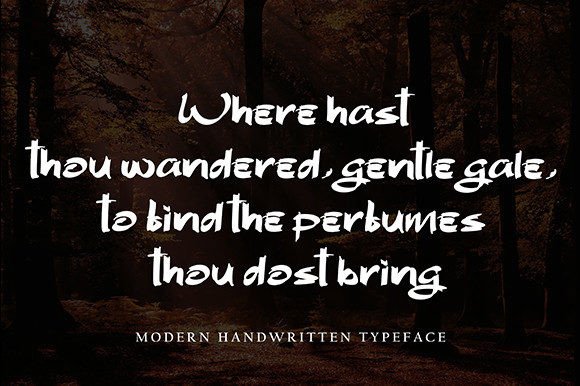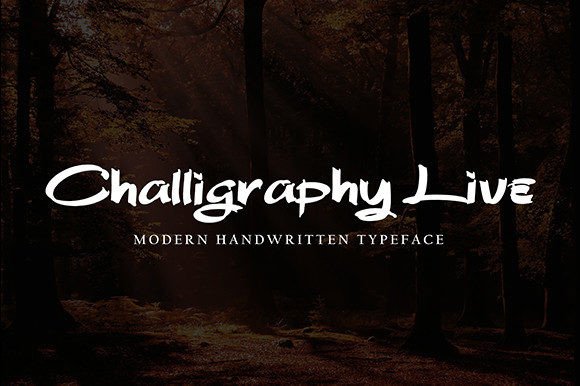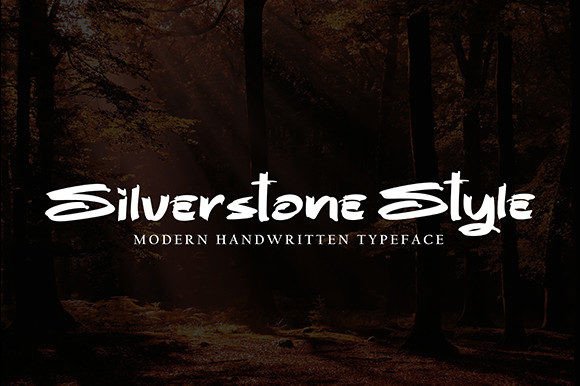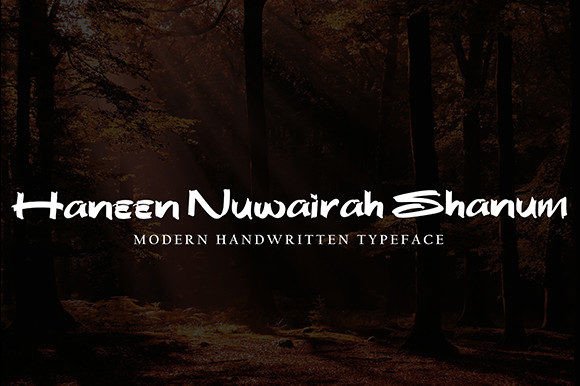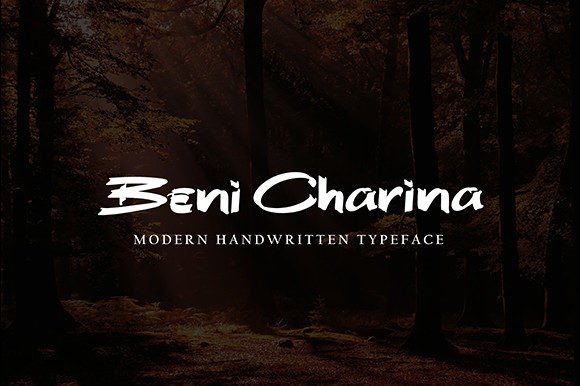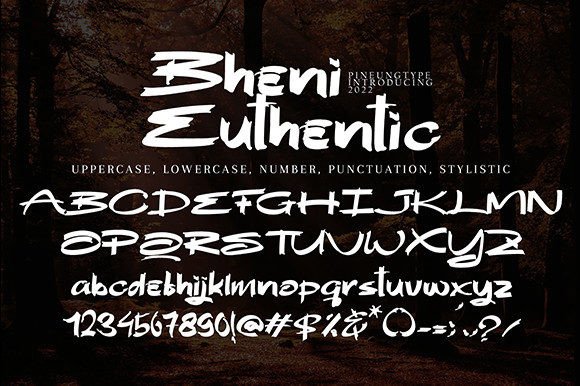
Bheni Euthentic Font: Elevate Your Designs with a Bold and Modern Handwritten Brush Font
In the world of typography, a font can make or break a design. It’s the perfect blend of style, personality, and functionality that can elevate a creation from ordinary to extraordinary. If you’re a designer, craft, or simply a DIY enthusiast, you’re likely always on the lookout for the perfect font to add to your library. Look no further than Bheni Euthentic, a bold and modern handwritten brush font that’s sure to become your new go-to.
What is Bheni Euthentic?
Bheni Euthentic is a carefully crafted handwritten brush font that exudes a cool, urban vibe. Its bold and modern design makes it perfect for a wide range of applications, from branding and advertising to packaging and digital media. With its unique character and personality, Bheni Euthentic is sure to add a touch of sophistication and style to any design.
Key Features of Bheni Euthentic
- Bold and Modern Design: Bheni Euthentic boasts a bold and modern design that’s perfect for making a statement.
- Handwritten Brush Font: The font’s handwritten brush style gives it a unique, organic feel that’s perfect for adding a touch of personality to your designs.
- Cool, Urban Vibe: Bheni Euthentic’s cool, urban vibe makes it perfect for designs that require a bit of edge.
- Versatile: Whether you’re working on a branding project, creating social media graphics, or designing packaging, Bheni Euthentic is versatile enough to handle any task.
Why Choose Bheni Euthentic?
So, why should you choose Bheni Euthentic over other fonts? For starters, its unique design and personality make it a standout in any design. Additionally, its versatility means you can use it across a wide range of applications, from digital media to print materials. Perhaps most importantly, Bheni Euthentic has the potential to elevate any creation, adding a touch of sophistication and style that’s sure to impress.
How to Use Bheni Euthentic
Design Ideas with Bheni Euthentic
So, what can you create with Bheni Euthentic? The possibilities are endless, but here are a few ideas to get you started:
- Branding and Logo Design: Use Bheni Euthentic to create a bold and modern logo that’s sure to make a statement.
- Social Media Graphics: Create eye-catching social media graphics that showcase your brand’s personality.
- Packaging Design: Add a touch of sophistication and style to your packaging with Bheni Euthentic.
- Digital Media: Use Bheni Euthentic in your digital media, such as video intros, animations, and more.
In conclusion, Bheni Euthentic is a bold and modern handwritten brush font that’s sure to become a valuable addition to your design library. Its unique character, versatility, and cool, urban vibe make it perfect for a wide range of applications. Whether you’re a designer, craft, or simply a DIY enthusiast, Bheni Euthentic is the perfect choice for anyone looking to elevate their designs and add a touch of sophistication and style.